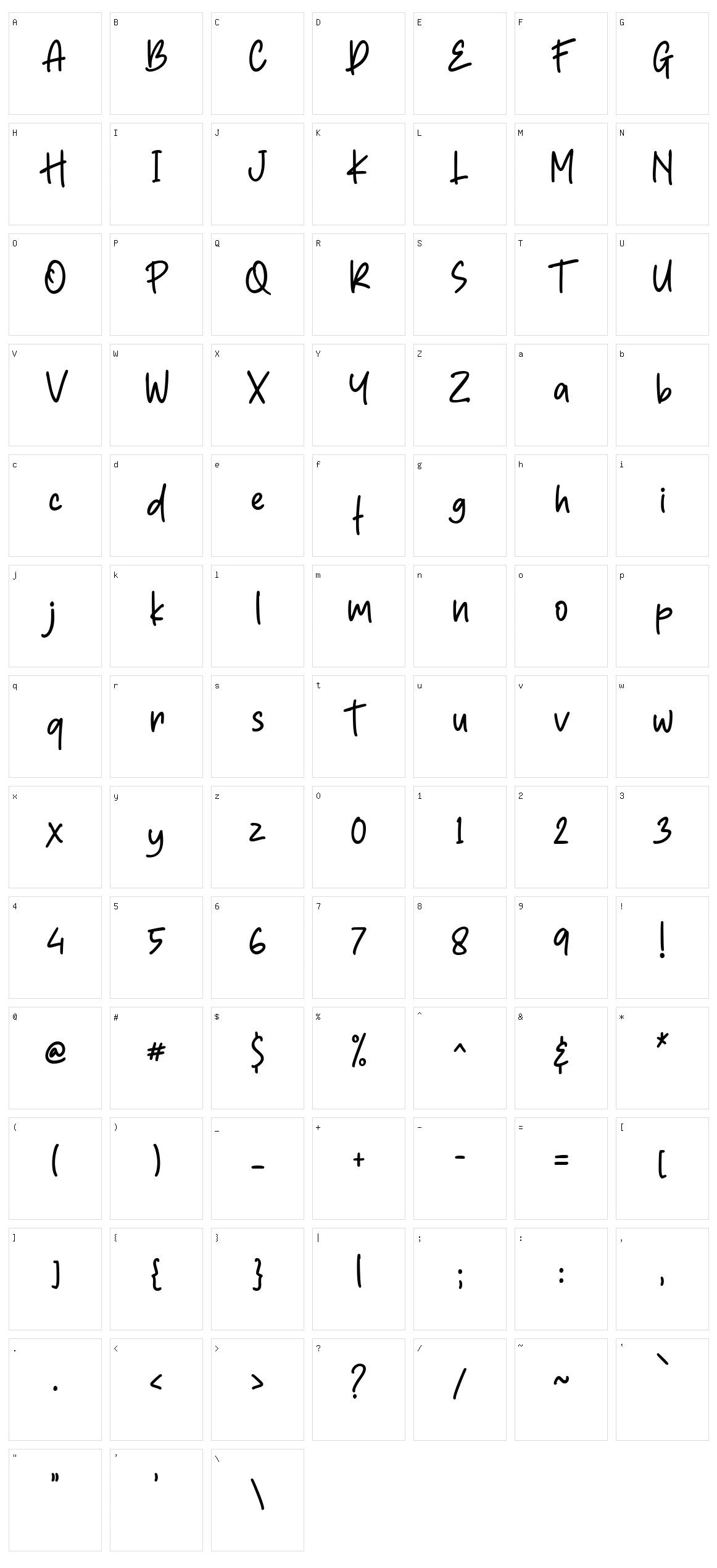
The free font Father's Entreaty is carefully designed by Haksen Studio, showcasing a thoughtful balance of creativity and usability and falls under the Script font style. When you download the ZIP file, it contains only 3006.61 KB of font files, making it lightweight and quick to download. Please review the license details below to understand permitted usage and distribution rights. If license information is not available, we recommend using this font for personal projects only or contacting the author directly for commercial usage permissions.